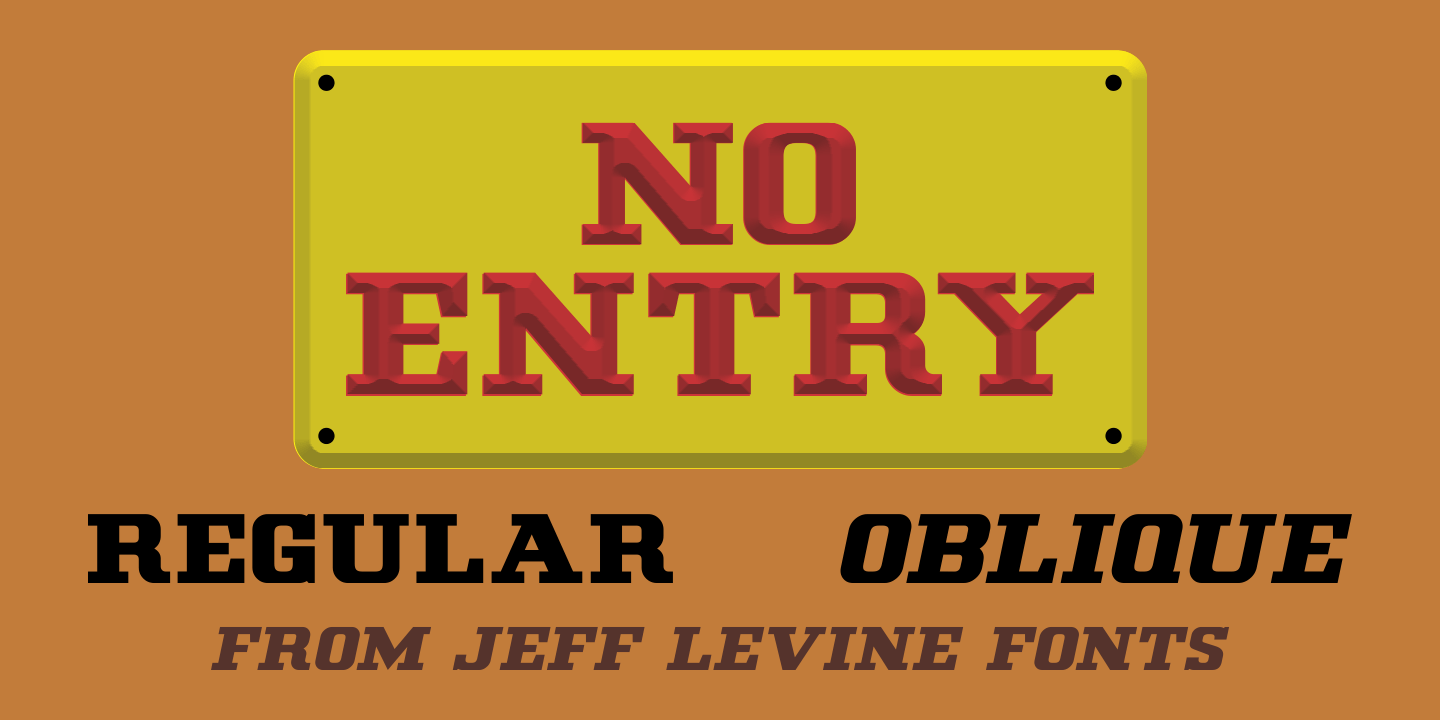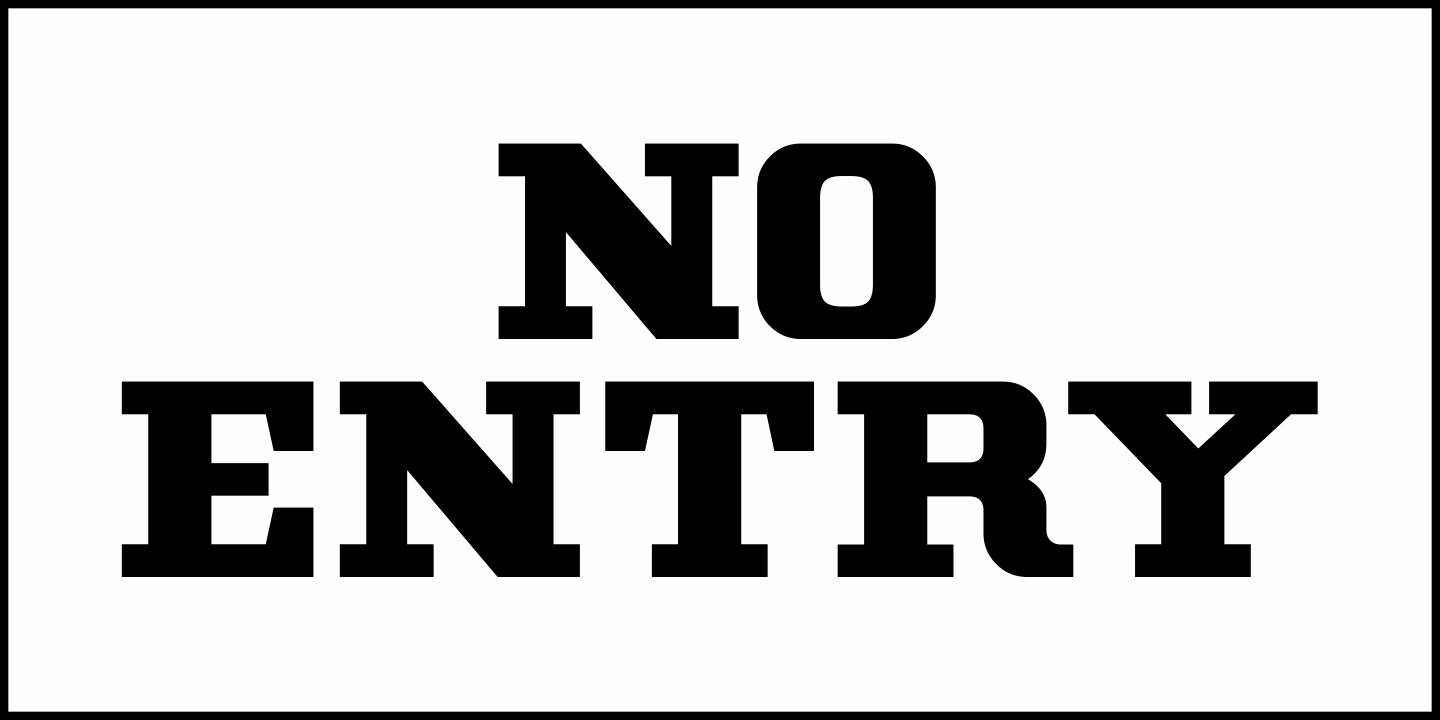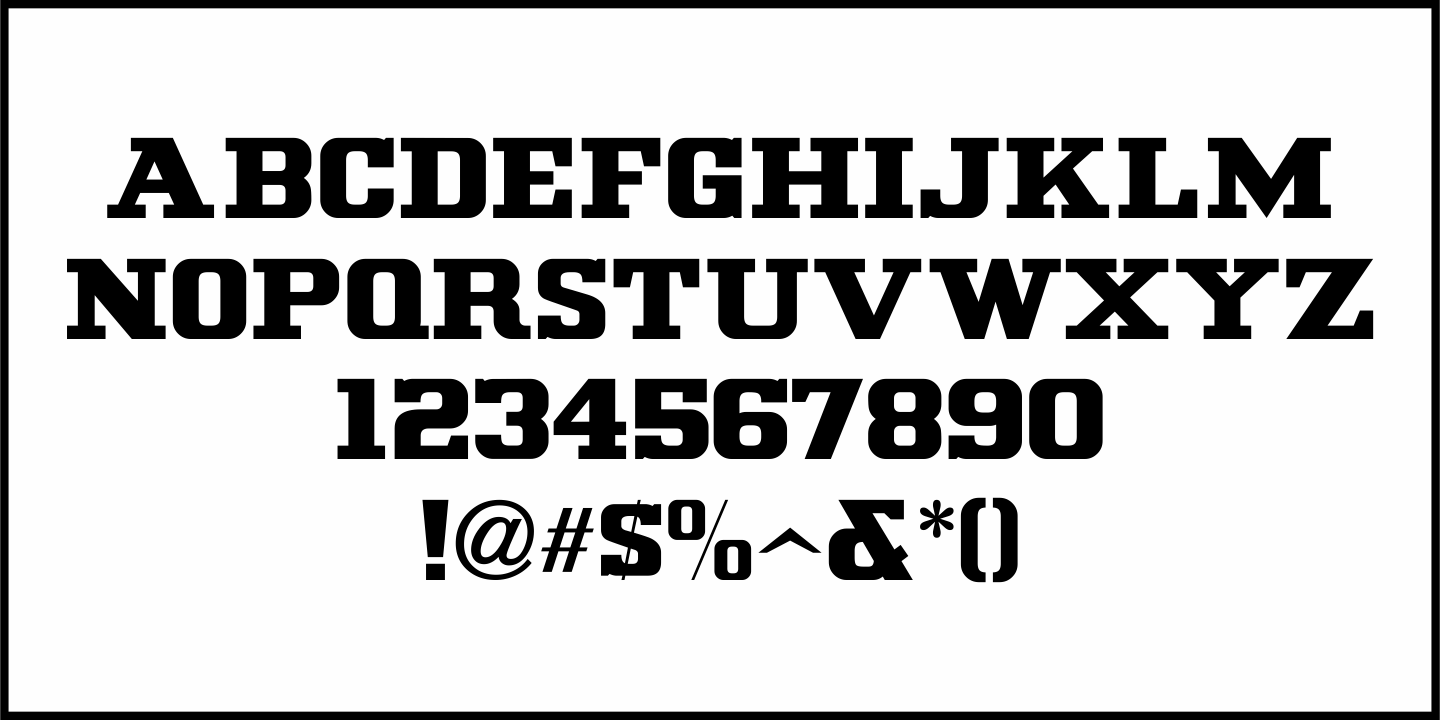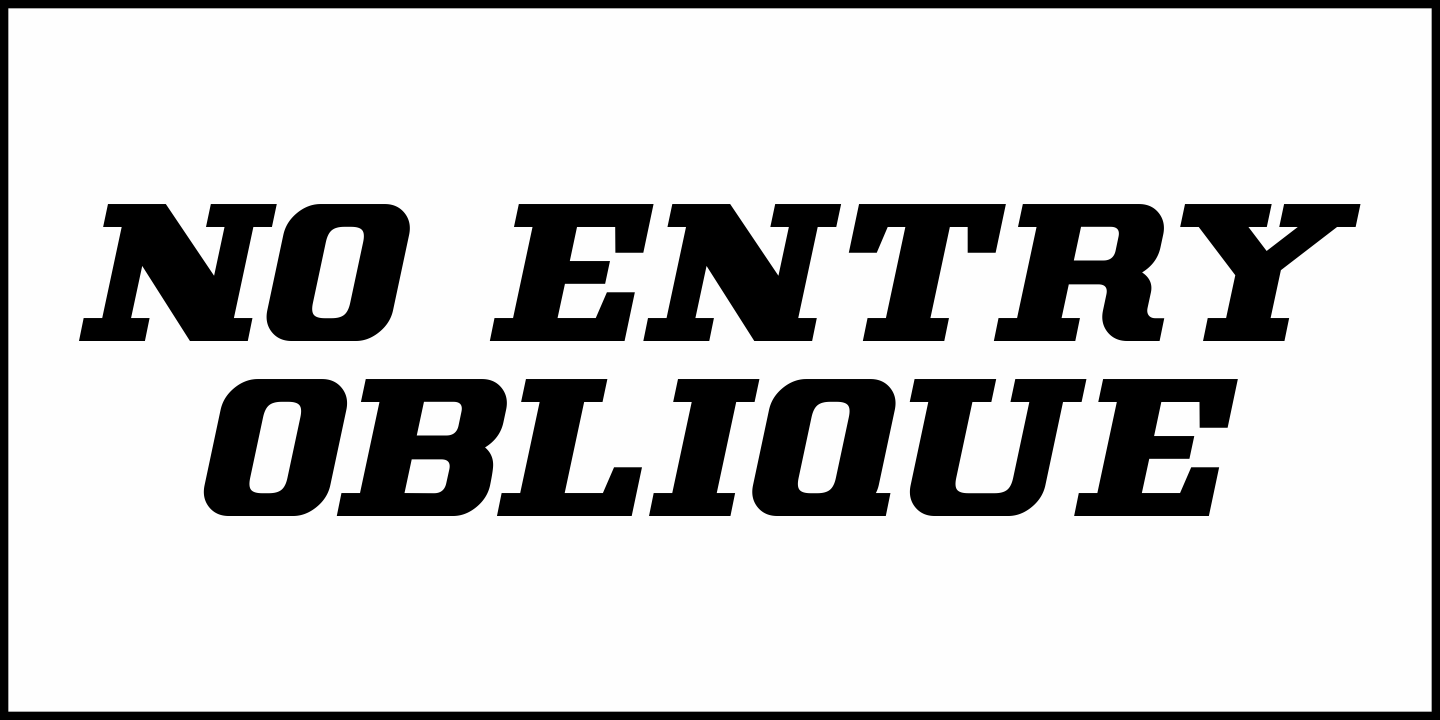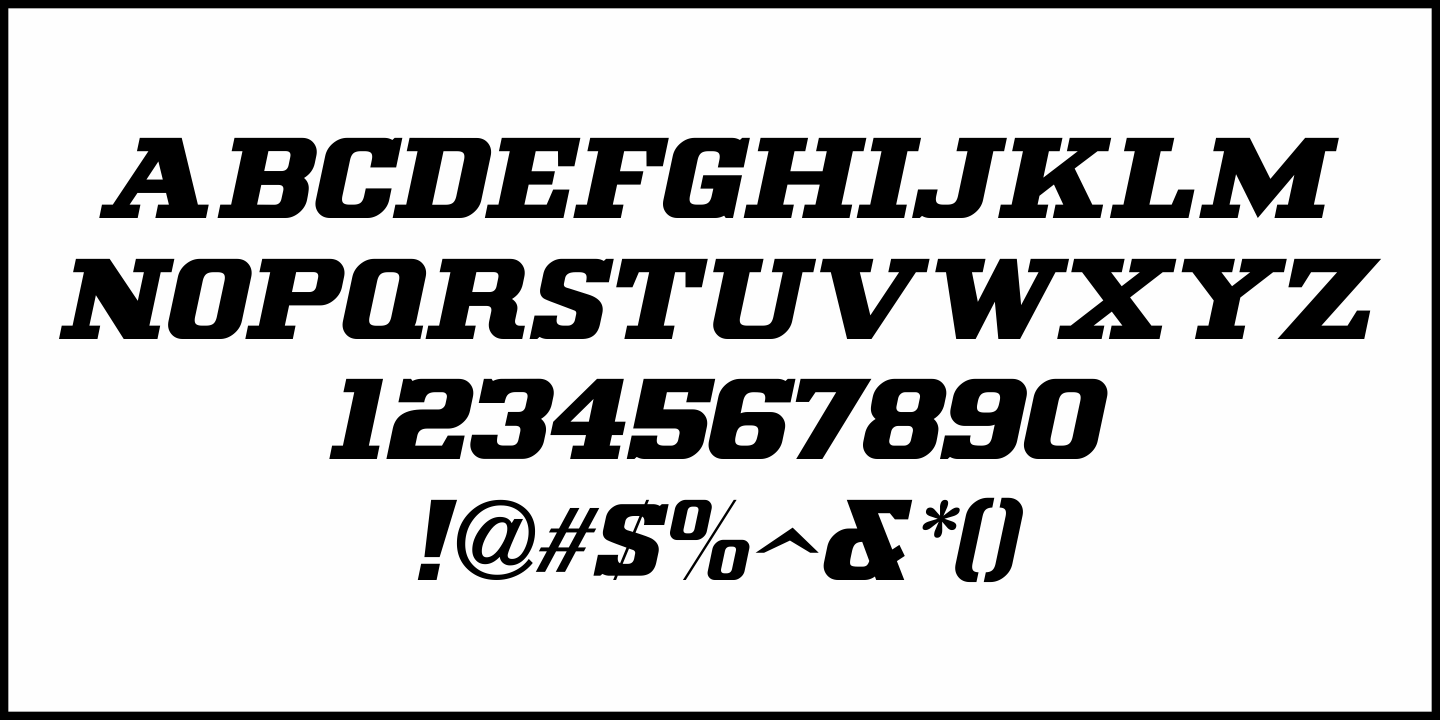
No Entry
The hand lettered titles and credits from the 1958 war film “The Young Lions” command your attention with a bold block slab serif type style.
This design has been digitally recreated as No Entry JNL, which is available in both regular and oblique versions.
No Entry by Jeff Levine Fonts